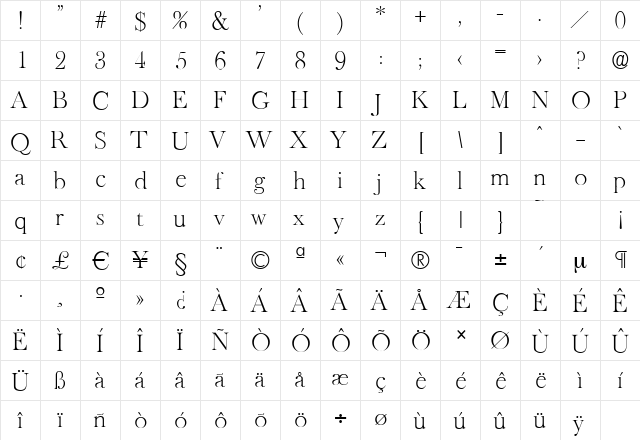
BaskerOldSerial-Xlight Regular
Design Context for BaskerOldSerial-Xlight Typeface
BaskerOldSerial-Xlight takes a measured approach to typography — its balanced proportions and neutral character make it a reliable workhorse for both digital and print work. Its slender proportions lend an understated elegance to any composition.